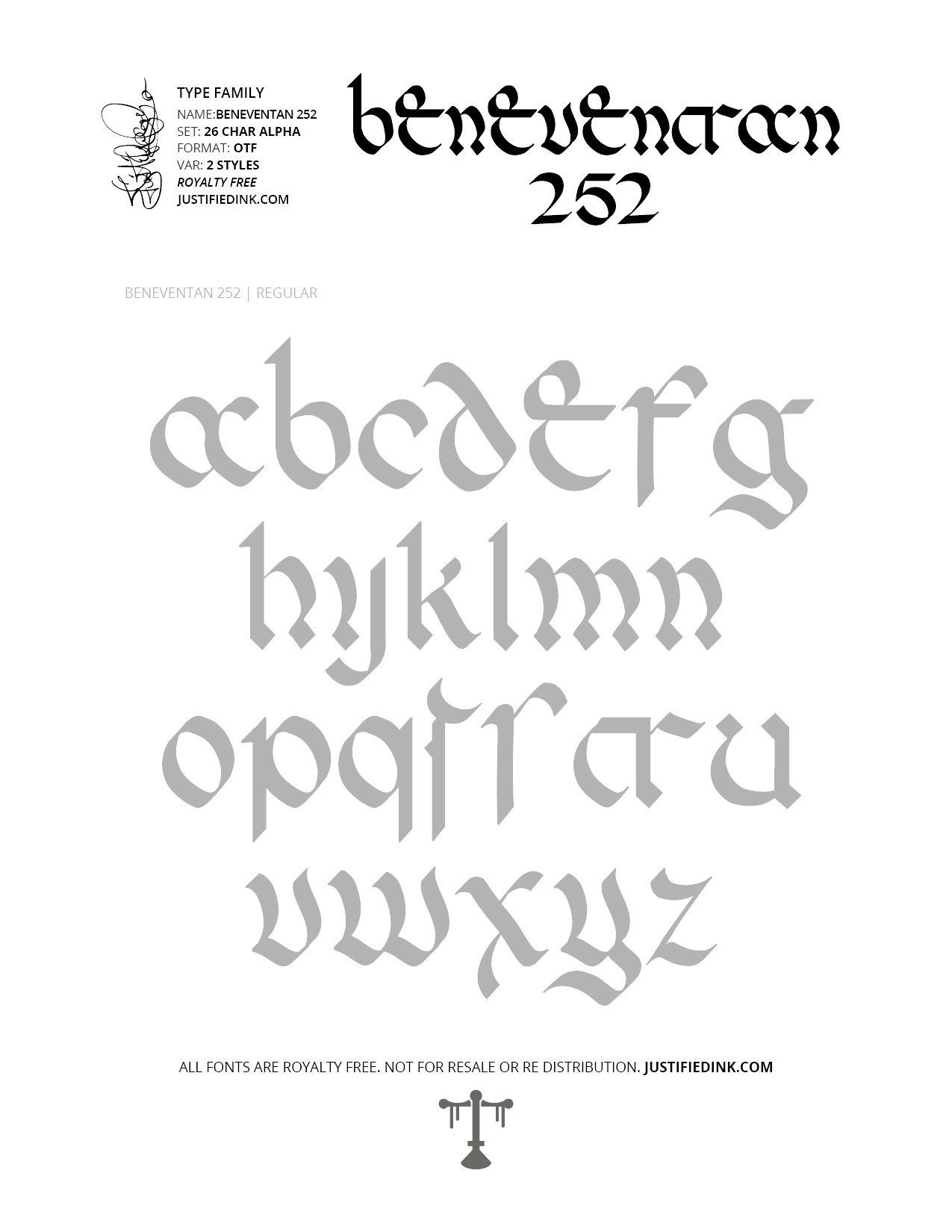
Beneventan 252 (2 styles) - Custom Font by Justified Ink
NAME: Beneventan 252
When in doubt, go medieval on 'em. Beneventan 252 is the first of the classic styles in this collection. Sometimes called Gothica, the script was used from approximately the mid-8th century until the 13th century.
This font is part of the collection by Justified Ink, called Blackletter III. After 15+ years creating, I began to focus on building personal libraries of my work. Blackletter III is yet another amazing collection of 30 handmade fonts. Building off of the work done to create Blackletter II, this collection is specialized where it was created digitally. This features many classic styles such as gothic, fraktur, beneventan, and uncial. Additionally, this collection contains several other styles drawn from graffiti, hiphop, and indie type styles. It comes in a full set of 26 char alpha. Each font family has variations in styles and/or non-alpha chars.